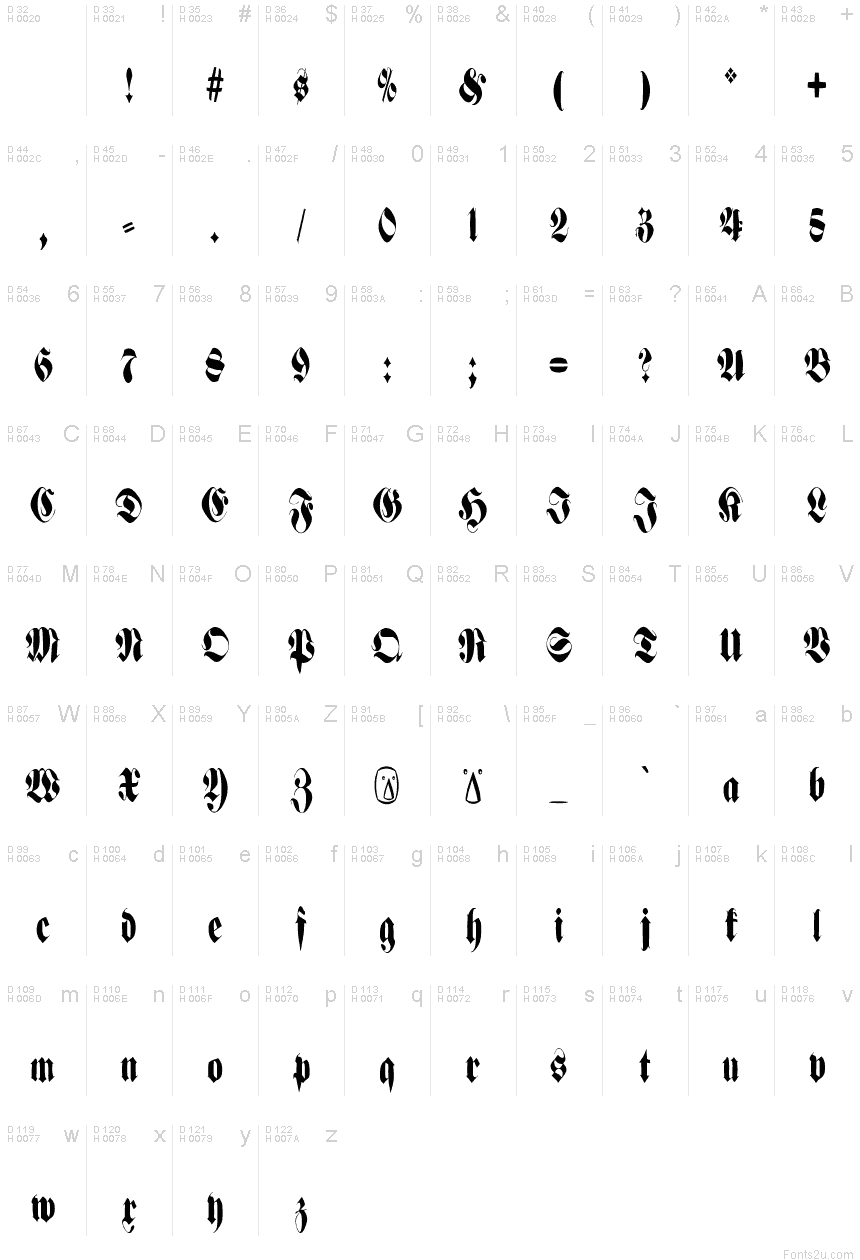
PopFraxFrankfurt
Pop Frax Frankfurt by Manfred Klein is a free blackletter font with a fierce, theatrical take on medieval lettering. Broad, dark strokes break into needle-sharp points, hooked curves, and long tapering flourishes. The changing stroke widths and exaggerated silhouettes make the letters look hand-cut and slightly unruly rather than formal or ecclesiastical.
Fans of underground music and tattoo culture will recognize its bite. It is especially convincing on concert posters, album covers, apparel graphics, and venue branding, where the pointed strokes can echo thorns, flames, or tribal ornament and turn a name into the central illustrated emblem rather than a conventional printed title.